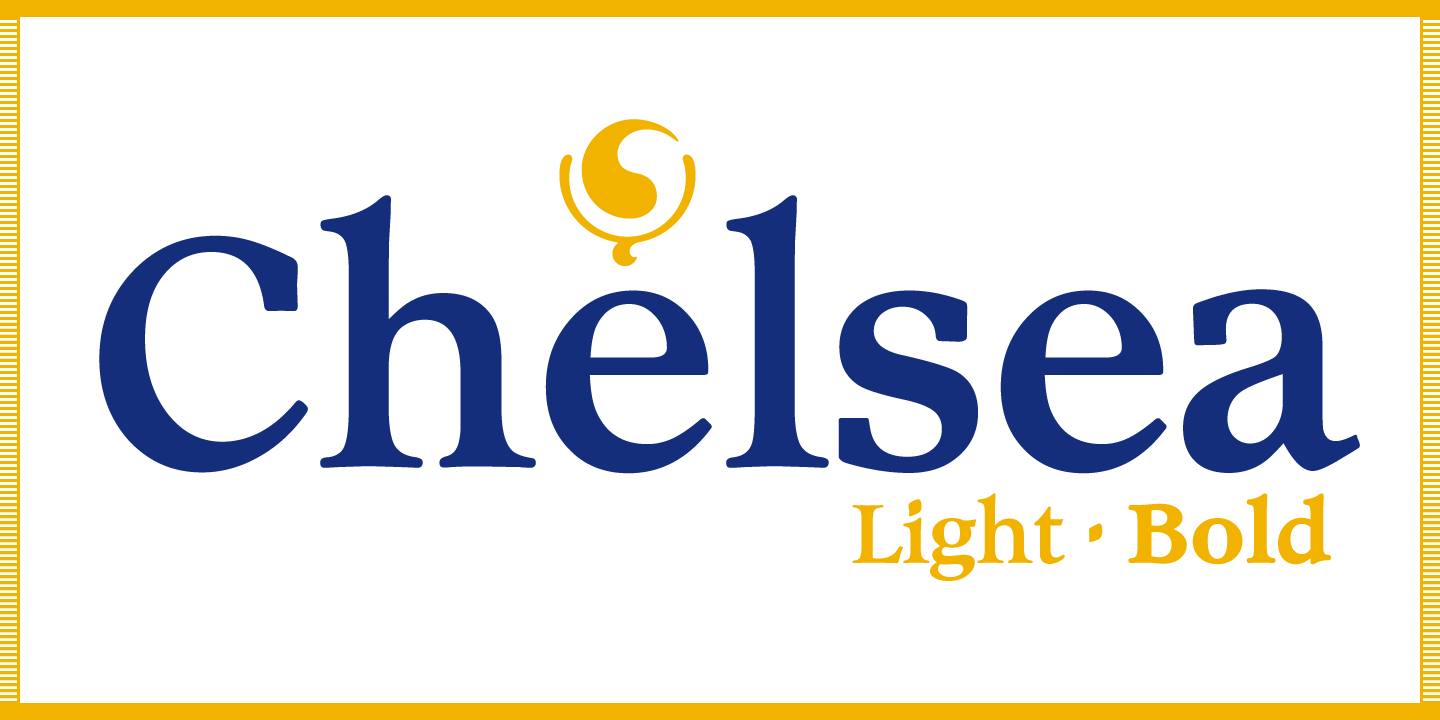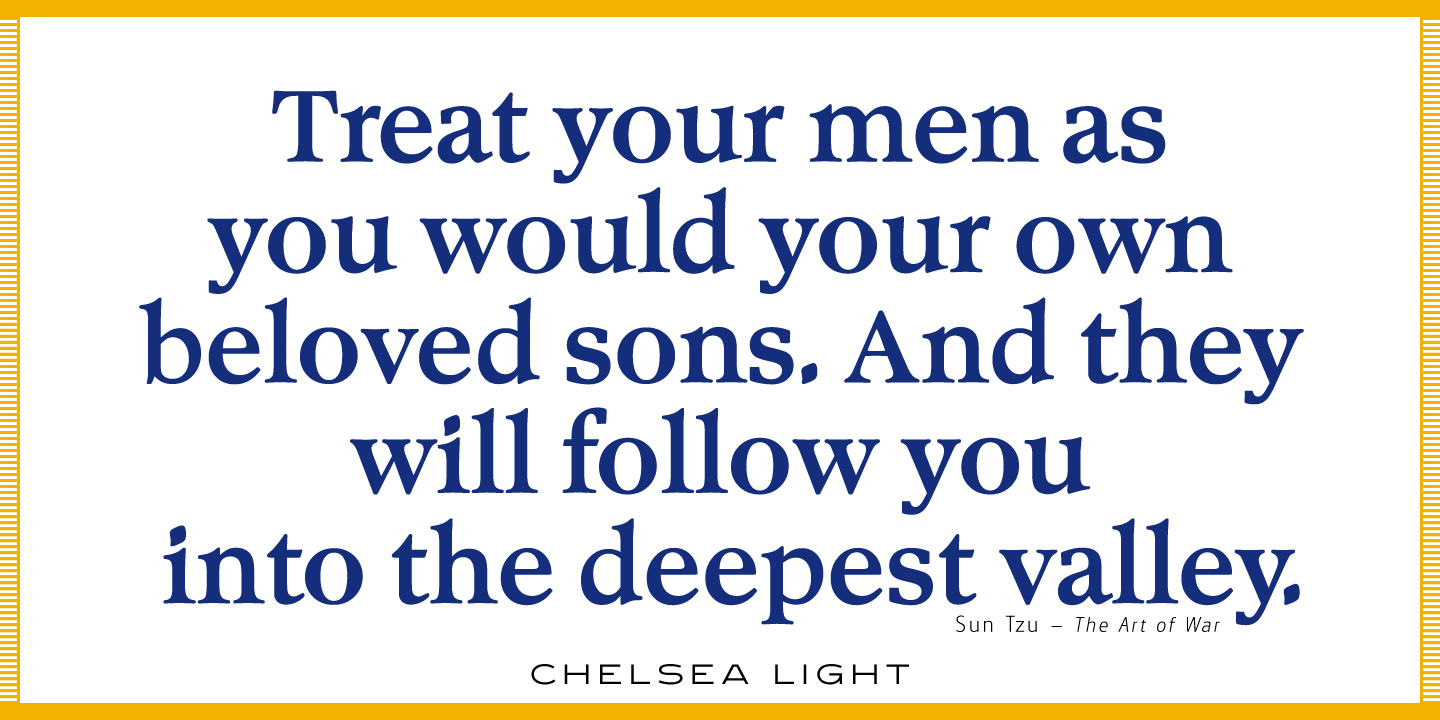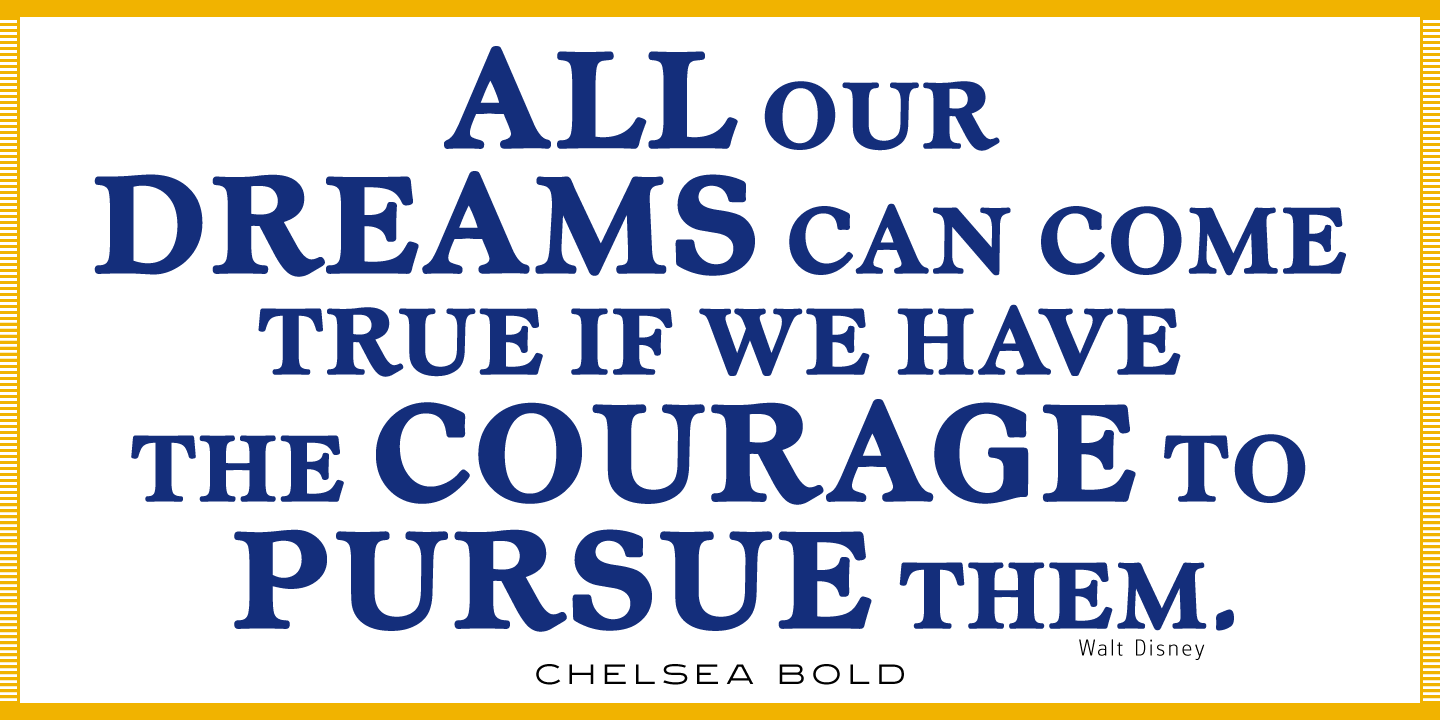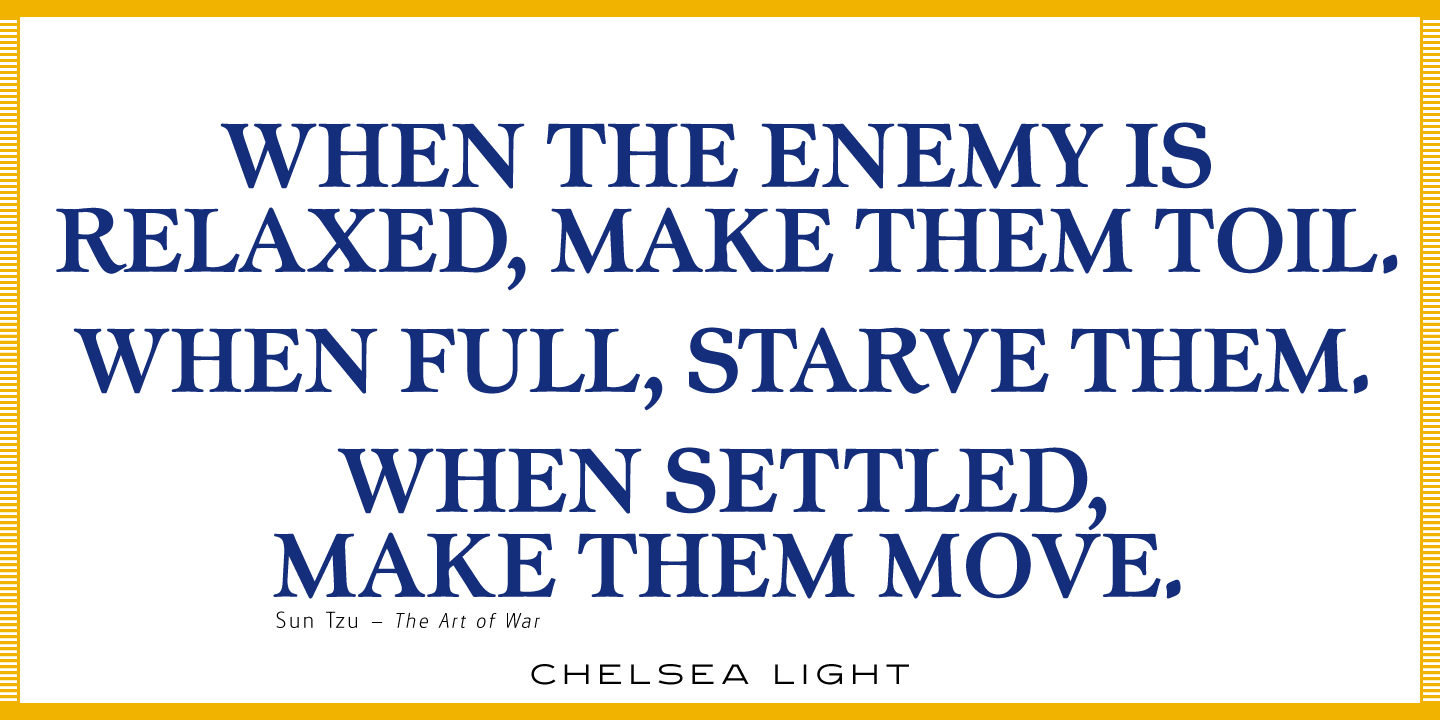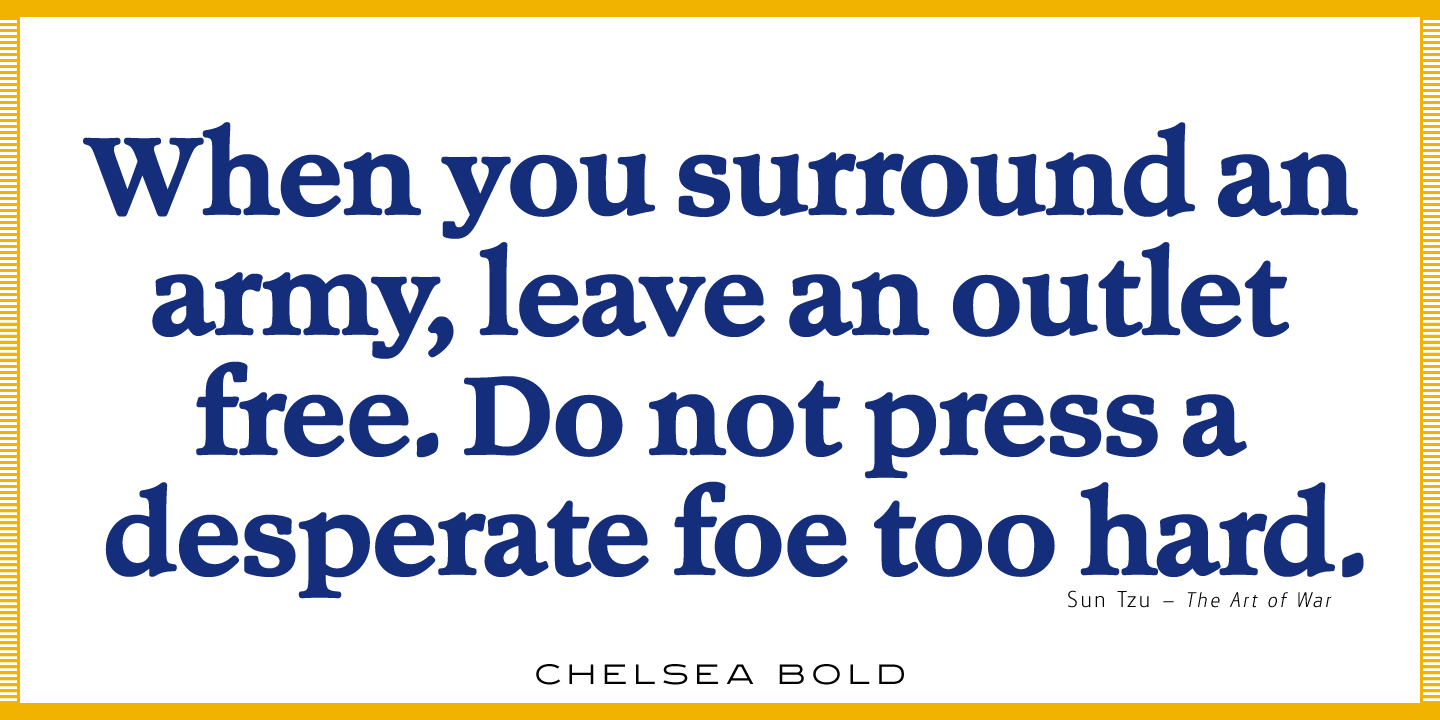
Chelsea
Chelsea Light
Chelsea Bold
Chelsea is a ‘modern’ Old Style serif font family designed by Les Usherwood (Typsettra) in the early 1980’s. Steve Jackaman (ITF) digitally engineered the family exclusively for ITF’s Red Rooster Collection in 1993. Usherwood drew influence from Frederic Goudy’s 1911 creation ‘Kennerley Old Style’ when designing Chelsea; Chelsea, however, tends to be wider with a taller x-height. Chelsea has the clean and upscale feel that is present in all Usherwood creations, and its legible design lends itself to projects of any size.